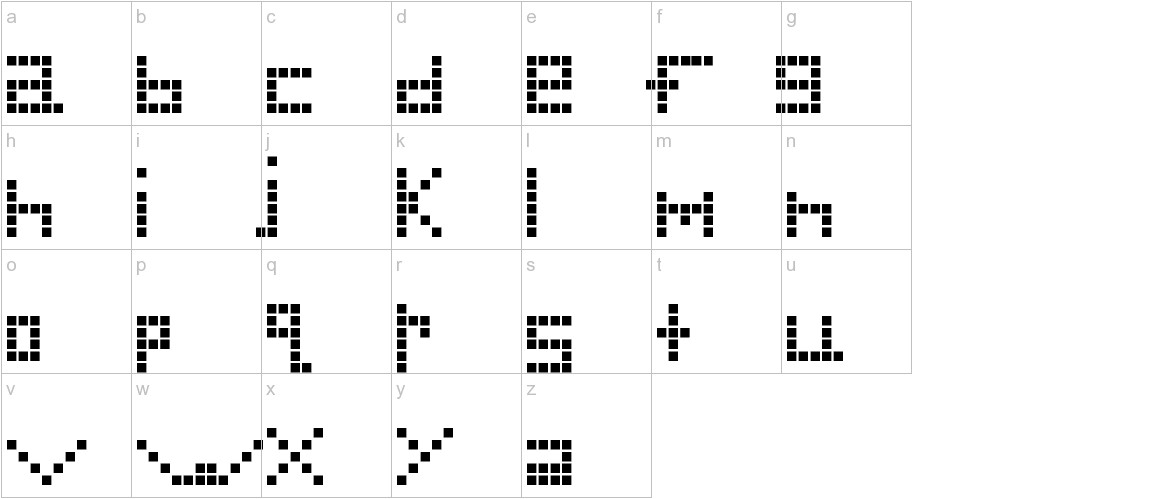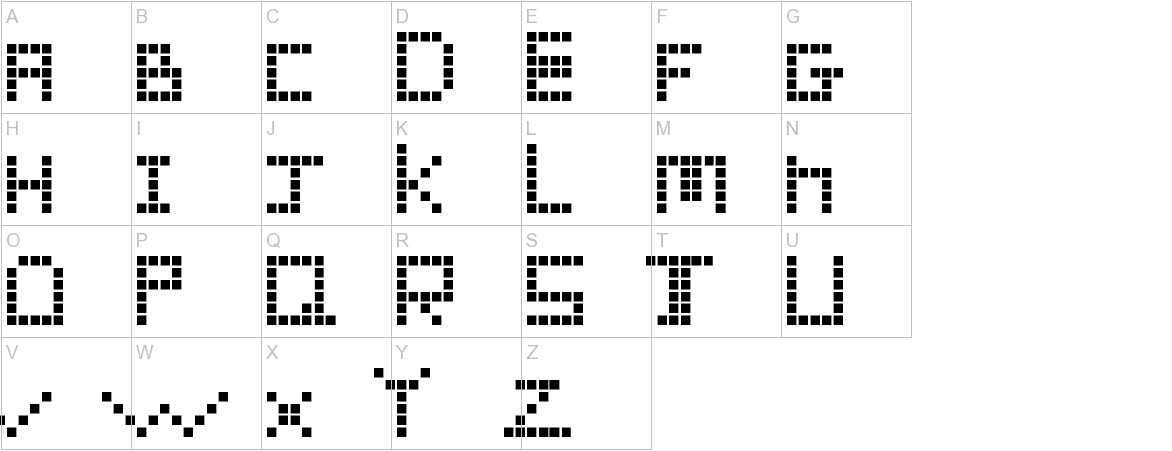
Laughin Like A Seagull
This font was inspired by my love for the band The Kills, and named after their popular song U.R.A Fever. Please donate .99 and support my fonts so I can continue to create more!